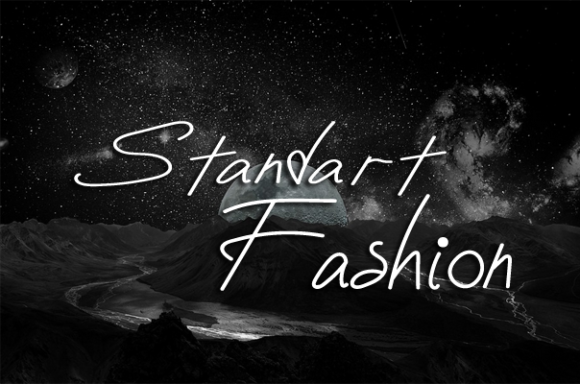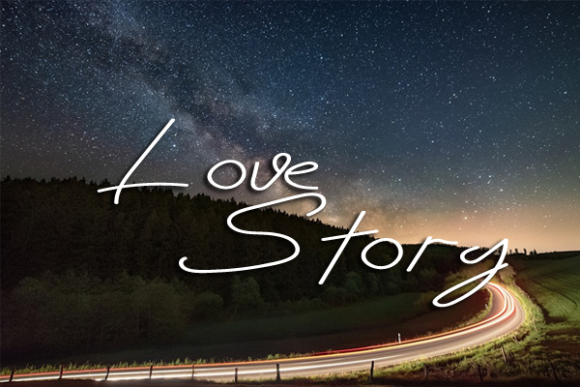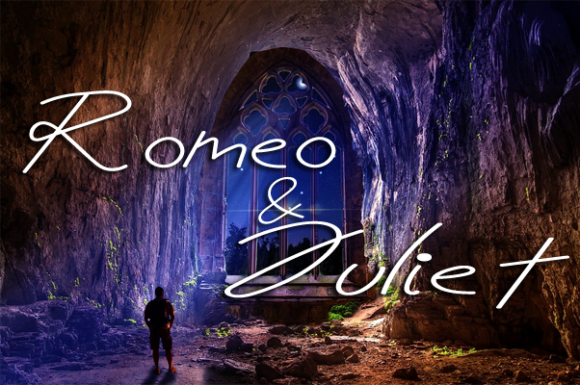
Photocorp Font
About Photocorp Font
Photocorp is a sweet and friendly handwritten font. Its natural and unique style makes it incredibly fitting to a large pool of designs. The only limit is your imagination!